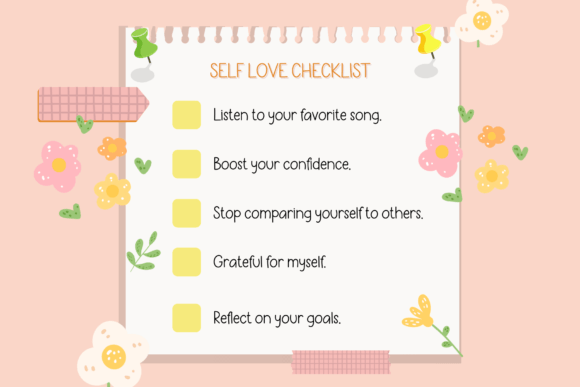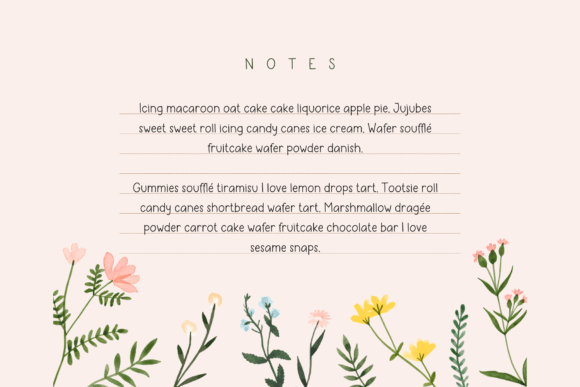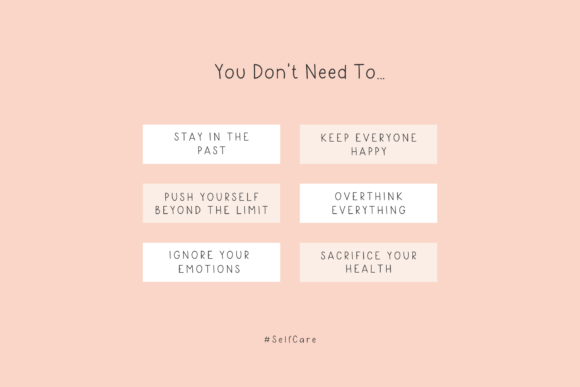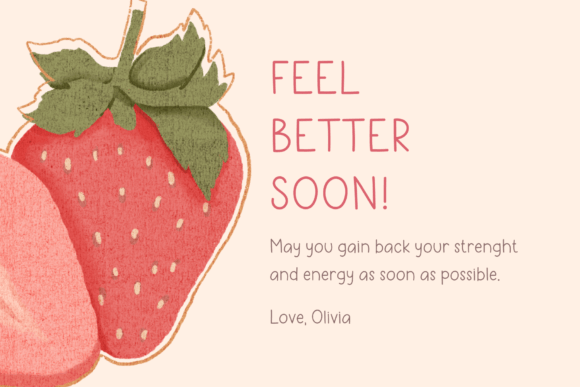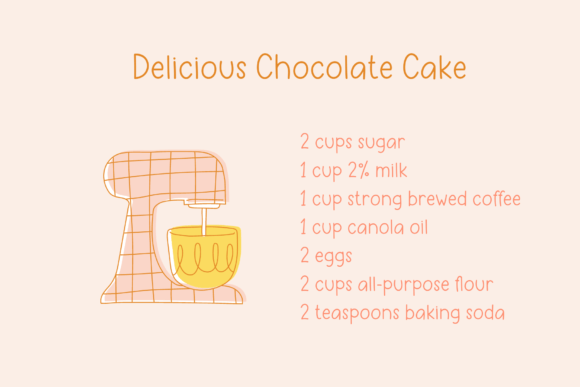
Introducing Happy Notes Font: Add a Personal Touch to Your Digital Creations
Are you tired of using the same old fonts for your digital planner, journal, or invitations? Do you want to add a personal touch to your creations and make them stand out? Look no further than Happy Notes Font, a delicate handwritten font that’s perfect for anyone looking to add a touch of elegance and whimsy to their digital designs.
What is Happy Notes Font?
Happy Notes Font is a beautiful, handcrafted font that’s designed to mimic the look of handwritten notes. With its delicate lines and subtle imperfections, this font is perfect for creating digital planners, journals, invitations, and more. Whether you’re a designer, crafter, or simply someone who loves to stay organized, Happy Notes Font is a versatile tool that can help you add a personal touch to your creations.
Features of Happy Notes Font
- Delicate Handwritten Look: Happy Notes Font has a beautiful, handwritten look that’s perfect for adding a personal touch to your digital creations.
- Versatile: This font is perfect for a wide range of projects, from digital planners and journals to invitations and note-taking.
- Elegant and Whimsical: Happy Notes Font has a unique blend of elegance and whimsy, making it perfect for anyone who wants to add a touch of personality to their designs.
- Easy to Read: Despite its delicate lines, Happy Notes Font is easy to read, making it perfect for digital designs where legibility is key.
Uses for Happy Notes Font
Happy Notes Font is a versatile tool that can be used for a wide range of projects. Here are just a few ideas to get you started:
- Digital Planners: Add a personal touch to your digital planner with Happy Notes Font. Use it to create headings, titles, and notes that are both functional and beautiful.
- Journals: Create a beautiful and unique journal with Happy Notes Font. Use it to write down your thoughts, goals, and inspiration.
- Invitations: Use Happy Notes Font to create beautiful and elegant invitations for special occasions like weddings, birthdays, and holidays.
- Note-Taking: Add a touch of personality to your notes with Happy Notes Font. Use it to take notes, create to-do lists, and jot down reminders.
Why Designers and Crafters Love Happy Notes Font
Happy Notes Font has quickly become a favorite among designers and crafters. Here are just a few reasons why:
- Unique and Versatile: Happy Notes Font is a unique and versatile font that can be used for a wide range of projects.
- Elegant and Whimsical: This font has a beautiful blend of elegance and whimsy, making it perfect for anyone who wants to add a touch of personality to their designs.
| Font Name | Happy Notes Font |
| Author | Cotton White Studio |
If you’re looking for a beautiful and versatile font to add a personal touch to your digital creations, look no further than Happy Notes Font. With its delicate lines, subtle imperfections, and elegant look, this font is perfect for designers, crafters, and anyone who wants to add a touch of personality to their designs. So why wait? Download Happy Notes Font today and start creating beautiful digital designs that are truly one-of-a-kind.